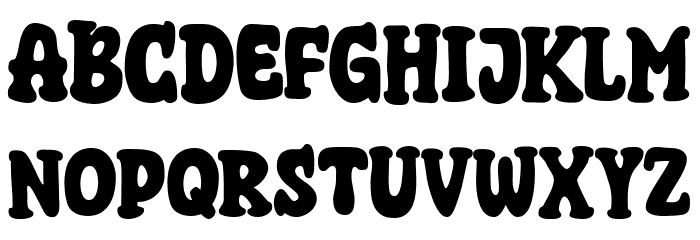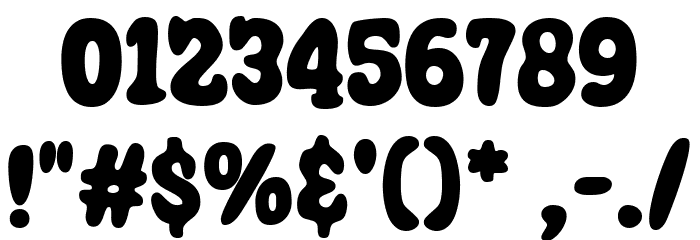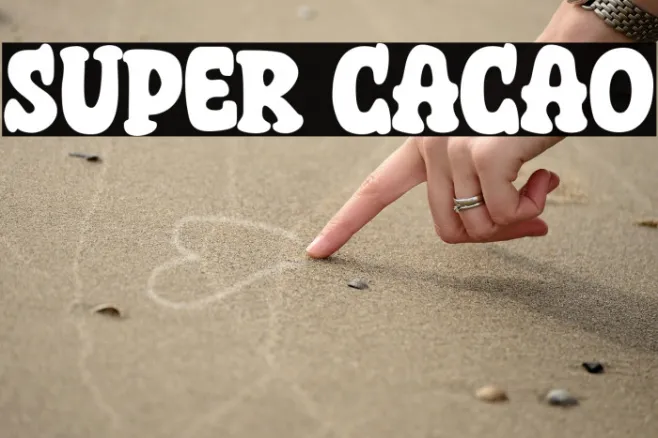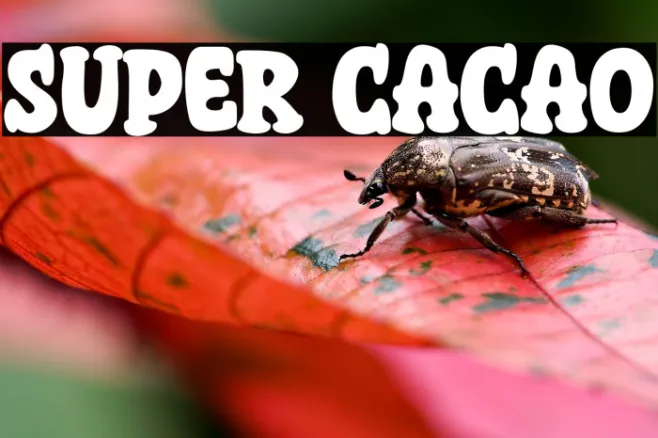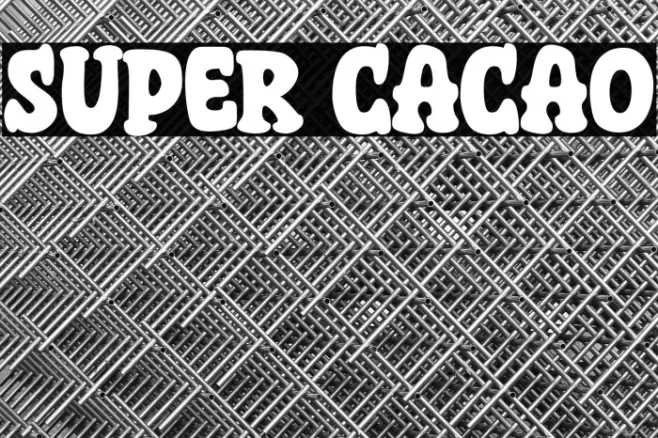
Super Cacao Font
This font features a bold and playful design with a distinctly rounded and bubbly appearance. The characters are thick and have a uniform stroke width, giving them a strong presence. The rounded edges and exaggerated curves lend a whimsical and friendly feel, making it ideal for creative and informal applications. The font maintains consistent spacing between characters, ensuring readability despite its decorative style. Its unique and eye-catching design makes it suitable for projects that require a fun and engaging visual element.
A bold, rounded, and playful font with a whimsical style.
- Font: Super Cacao
- Proposed Projects: Ideal for children's books, playful branding, posters, and party invitations.
- Overall Style: Playful, Whimsical